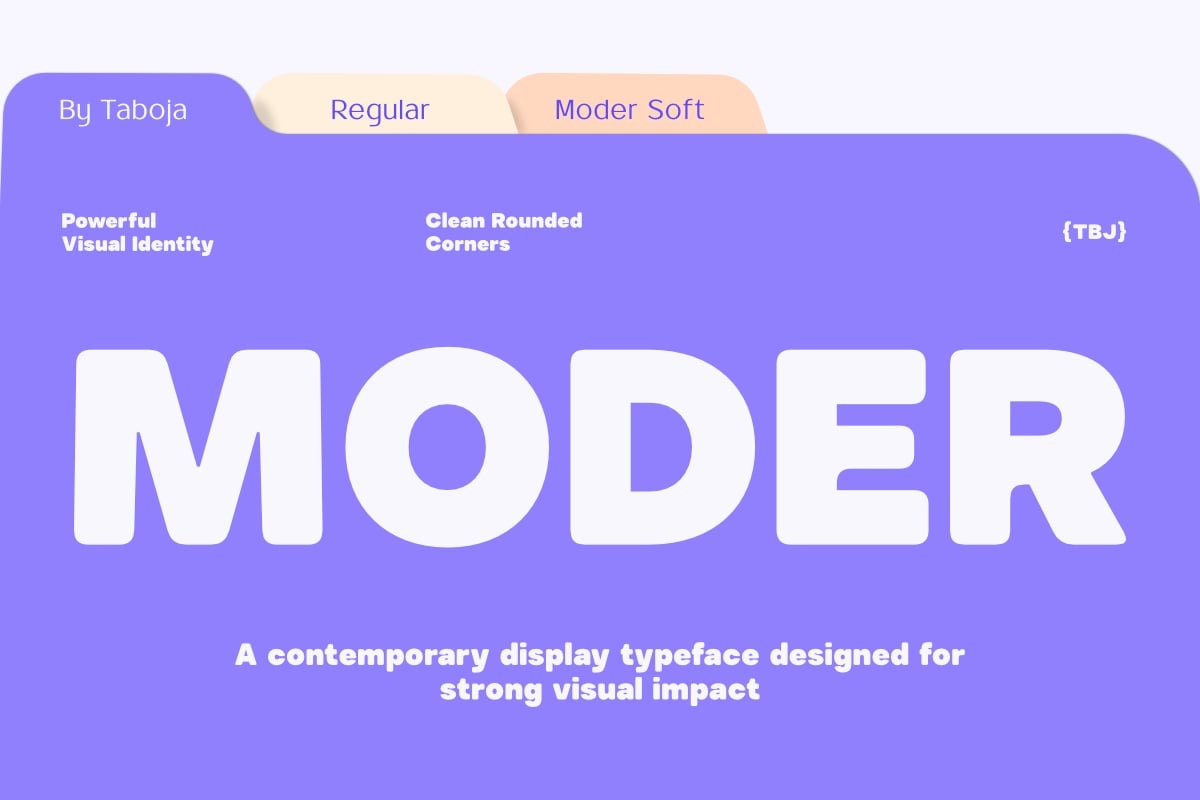
TBJ Moder – Contemporary Rounded Font
TBJ Moder – Contemporary Rounded Font is a versatile font designed to adapt beautifully across different design styles, offering dependable readability and balance. Moder is a contemporary rounded display typeface designed to deliver a bold and modern visual identity. Created with smooth curves and clean rounded corners, this typeface offers a friendly yet powerful character that stands out in large headlines and modern branding.
The letterforms are carefully crafted to balance softness and strength, making MODER ideal for designs that require clarity, personality, and strong visual presence. Its geometric construction and rounded terminals create a modern aesthetic that works perfectly across various creative projects.
Whether used for branding, posters, packaging, social media graphics, or editorial layouts, MODER brings a confident and contemporary tone to your typography.
Multilingual character support ensures flexibility for global projects, while its balanced structure keeps the typeface readable across both print and digital media.